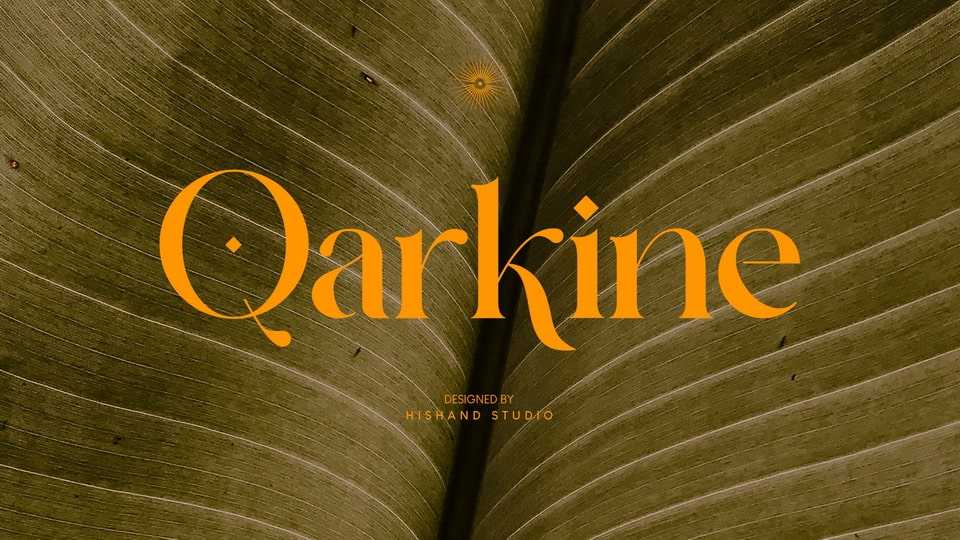
Download Qarkine font, a serif typeface that sets the standard for elegance and class in typography. With its sleek and stylish design, Qarkine strikes the perfect balance between classic and contemporary, making it a versatile choice for a wide range of design projects.